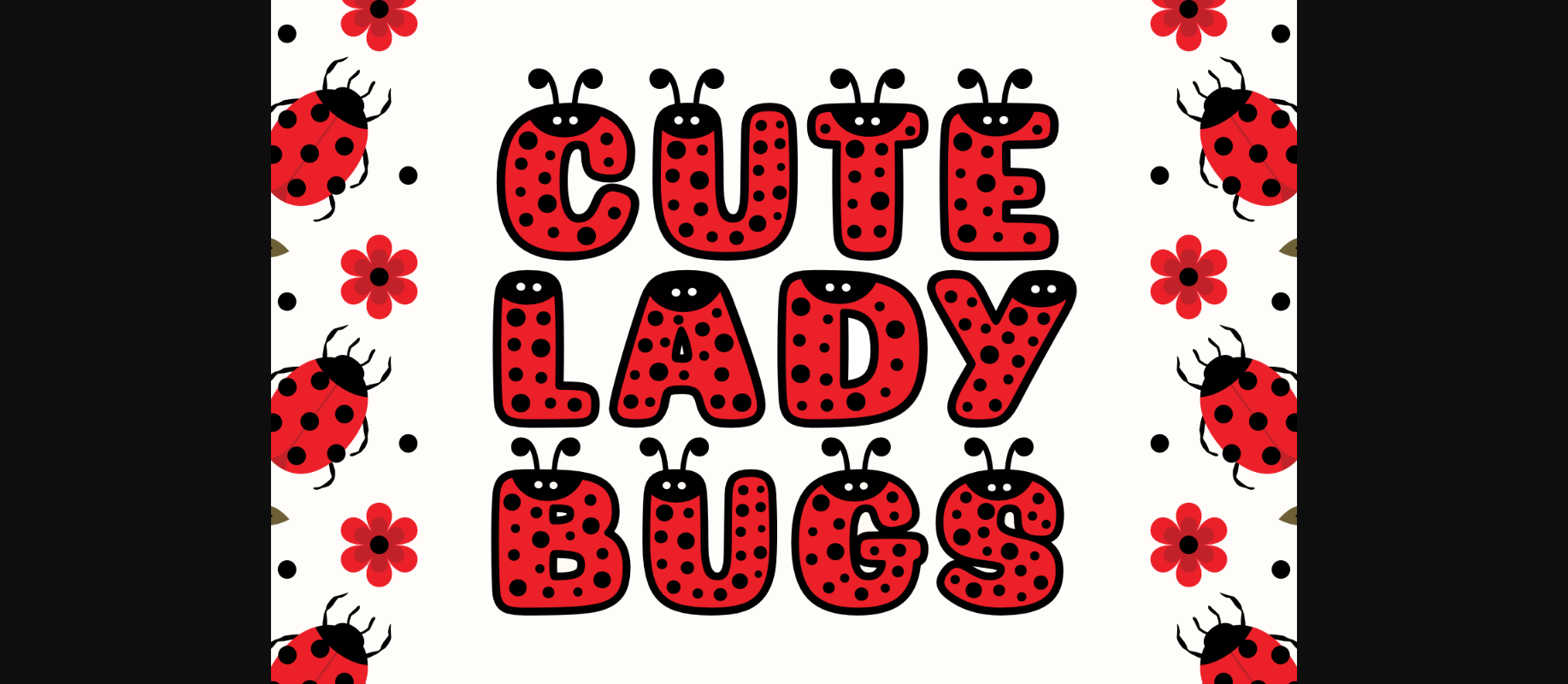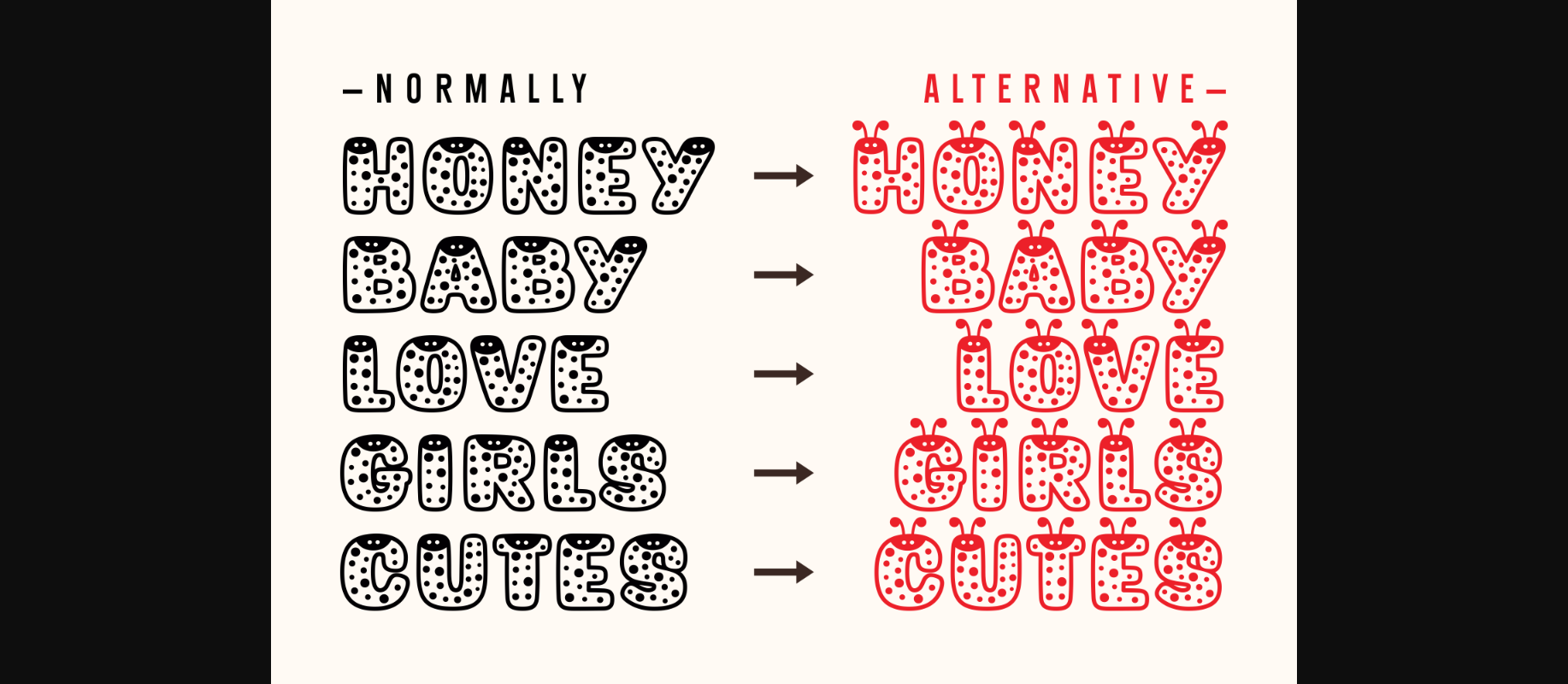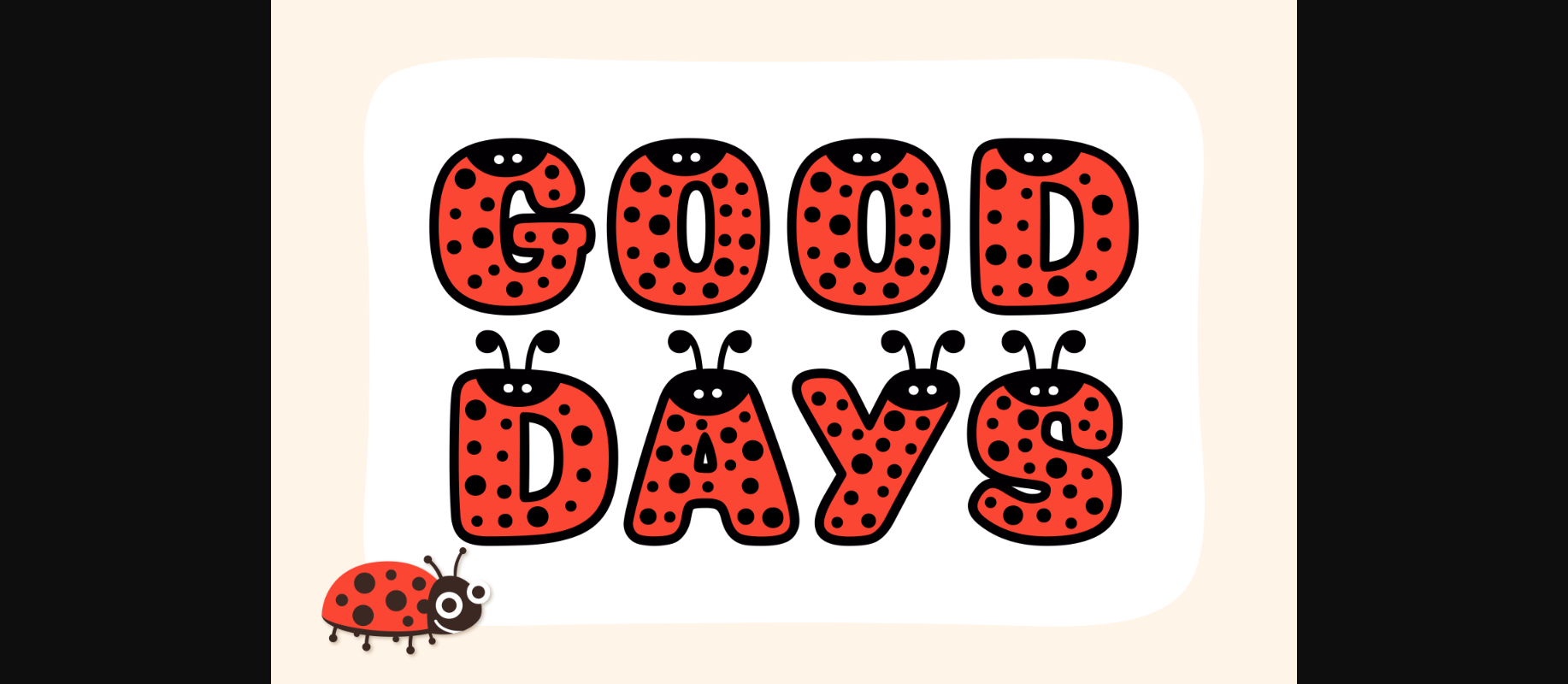
About Cute Lady Bugs Font
Cute Lady Bugs is an adorable decorative font. Brighten up your day and typography designs with this beautiful font that features lovely ladybug dots and charming antennae! It is perfect for spring-themed projects, cards, kids’ t-shirts, invitations, signage, crafting projects, and more.